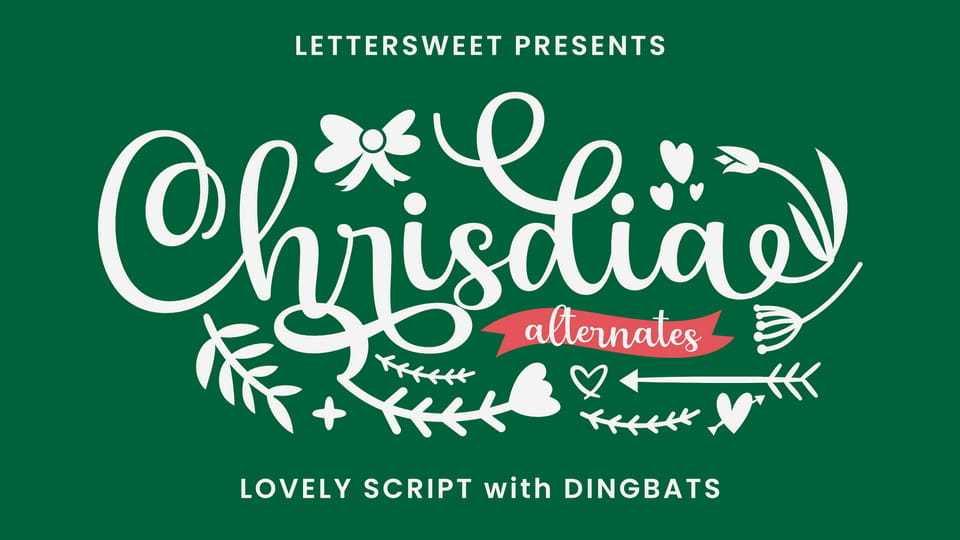
Download Chrisdia font, a sweet script typeface that comes with beautiful stylistic alternates and a delightful set of dingbats. It brings a warm, playful, and lovely touch to any design project.